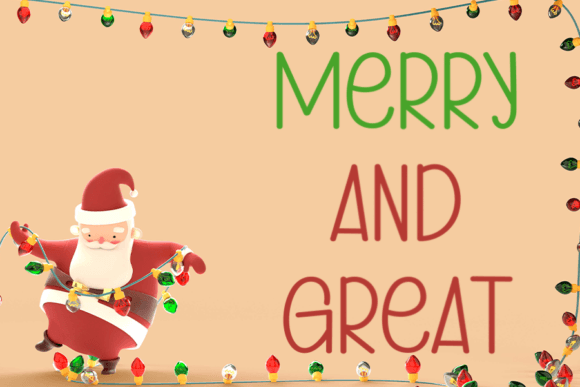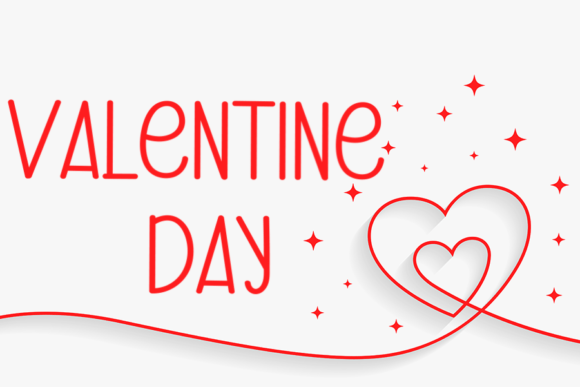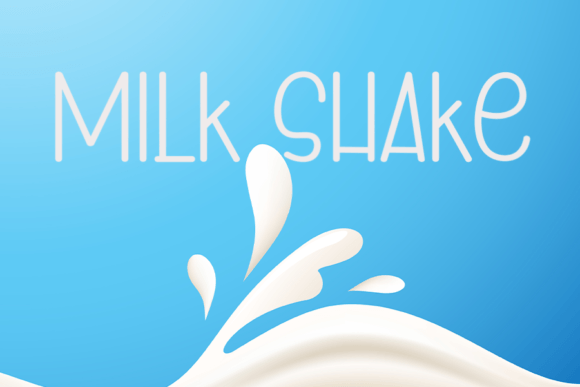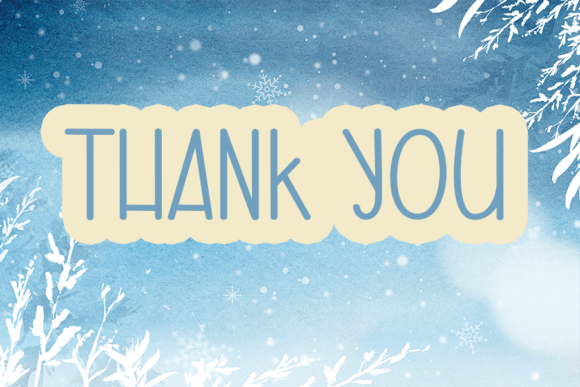
Add a fun and casual vibe with the Winter Of Desember font. This handwritten script is incredibly versatile and suitable for a wide range of design ideas. Whether you’re working on greeting cards, headlines, or branding, this font fits perfectly.
The Winter Of Desember font is designed to bring a natural and relaxed style to your creative projects. Its casual feel makes it ideal for digital designs, crafts, presentations, and social media posts.
Each character is crafted with smooth, flowing strokes that create a polished yet informal look. This font balances readability with artistic charm, making it great for logos, quotes, headlines, and decorative text.
Despite its casual style, the Winter Of Desember font remains readable at different sizes. Whether used for bold titles or subtle accents, it adapts well. Its flexibility makes it a great choice for many creative projects.
Using this font will help your designs stand out. It adds a playful and friendly spirit. If you want your work to look approachable and stylish, the Winter Of Desemberfont is an excellent choice.
In summary, the Winter Of Desember font suits many design needs. From crafts to branding and social media, it brings fun and versatility. Download it today and create beautiful, memorable designs with a casual handwritten script.